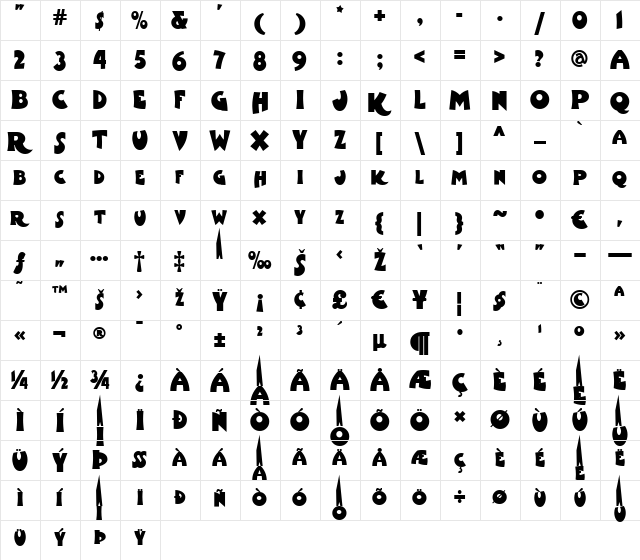
Wooden Shoe Revue NF Regular
Design Context for Wooden Shoe Revue NF Typeface
Wooden Shoe Revue NF taps into classic Western woodtype traditions — bold, characterful, and impossible to ignore.
A natural fit for craft spirits, ranch branding, rodeo events, and Americana-inspired design work.
Font Pairing: Combine Wooden Shoe Revue NF with a simple slab or neutral sans — period-accurate companions reinforce the vintage feel without competing for attention.
Pro Tip: Use Wooden Shoe Revue NF for short, impactful bursts of text — it shines in poster headlines and product names rather than extended copy.